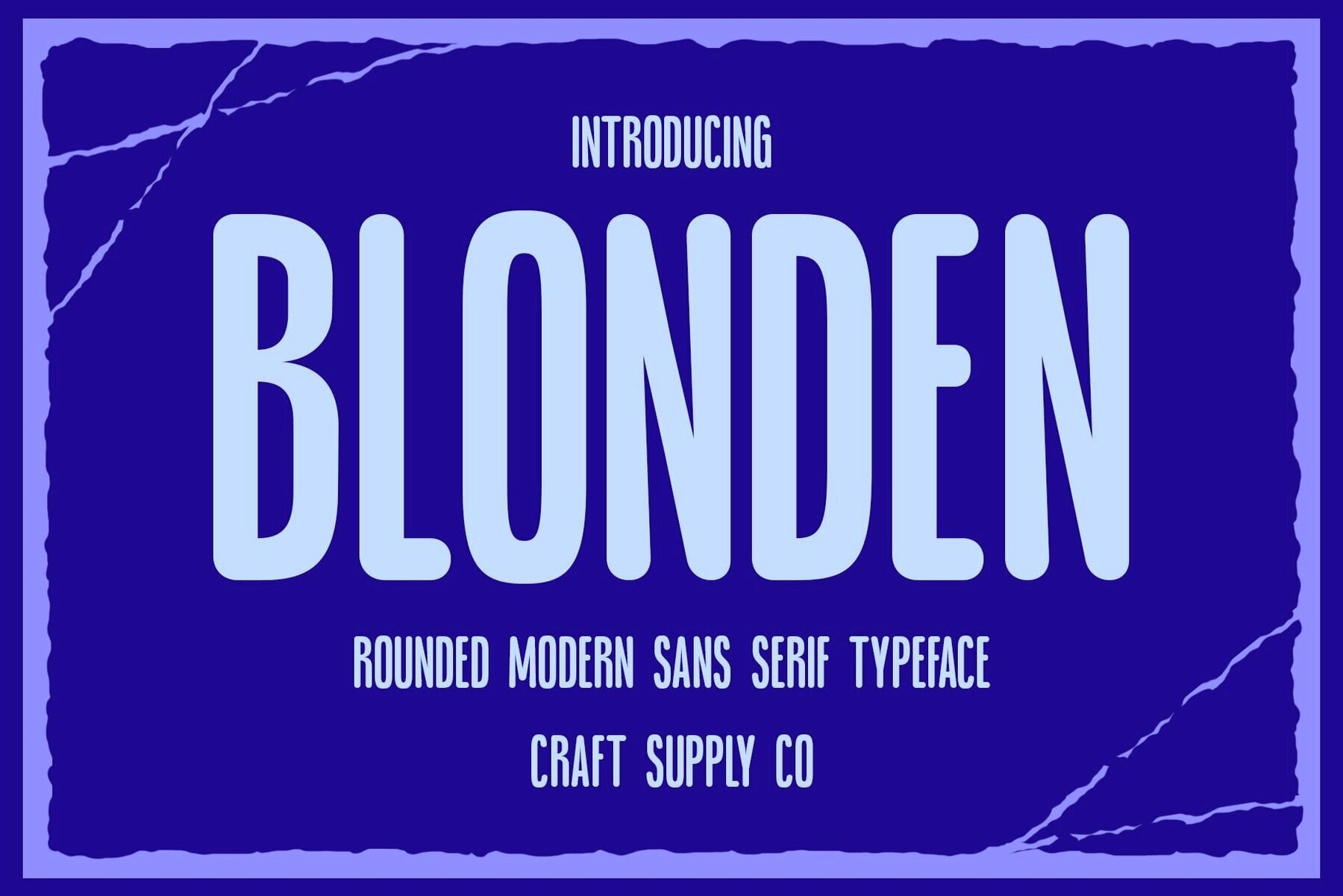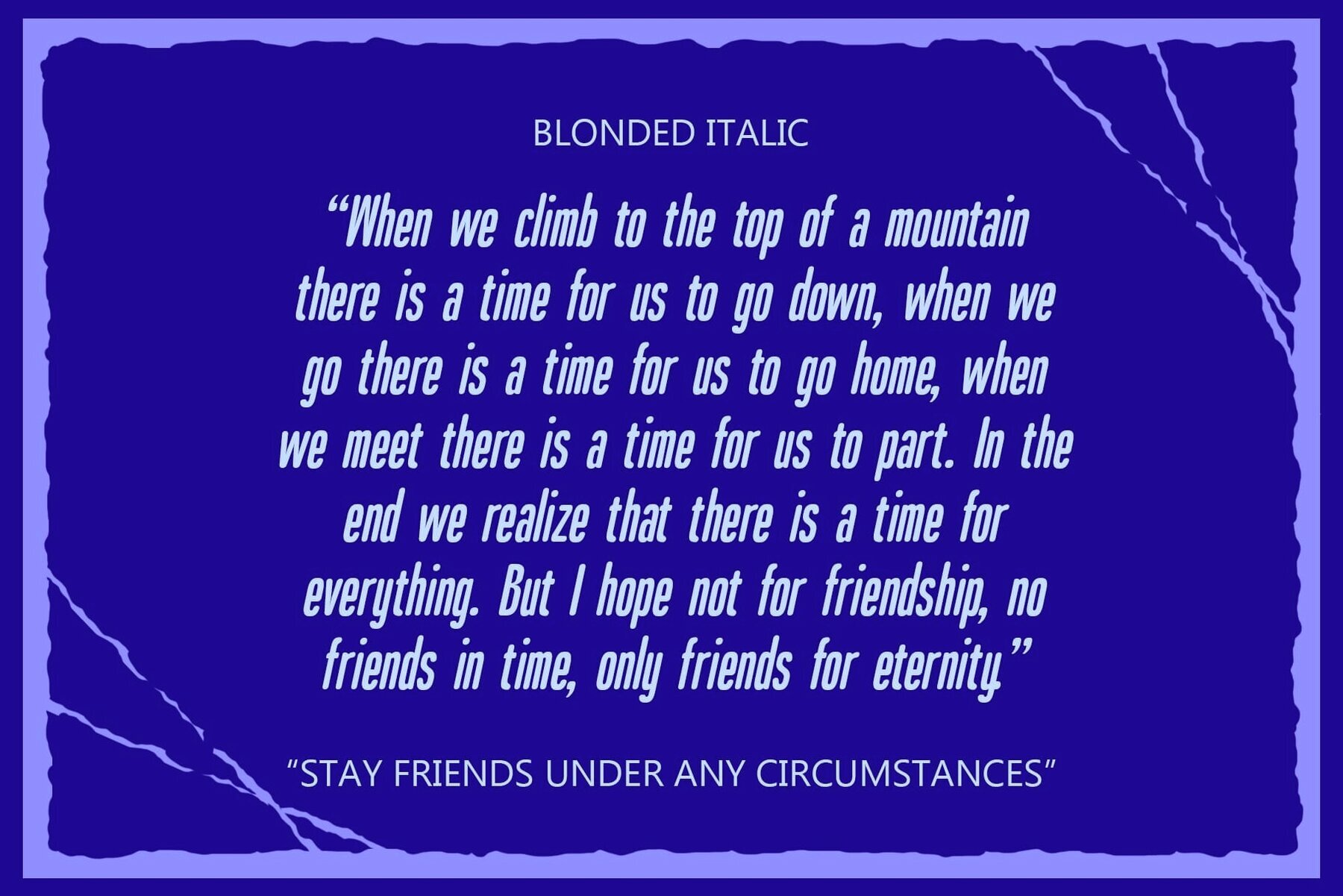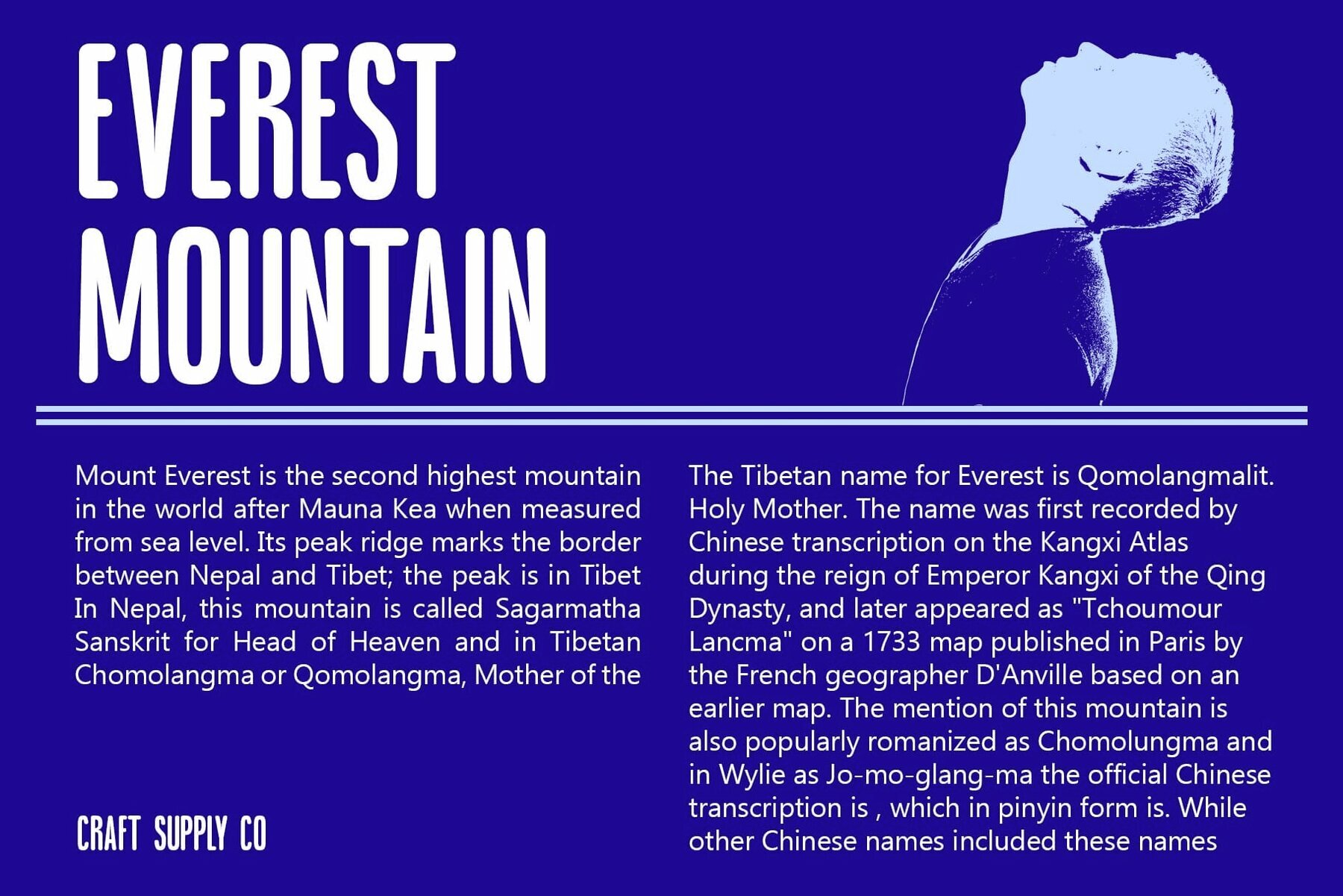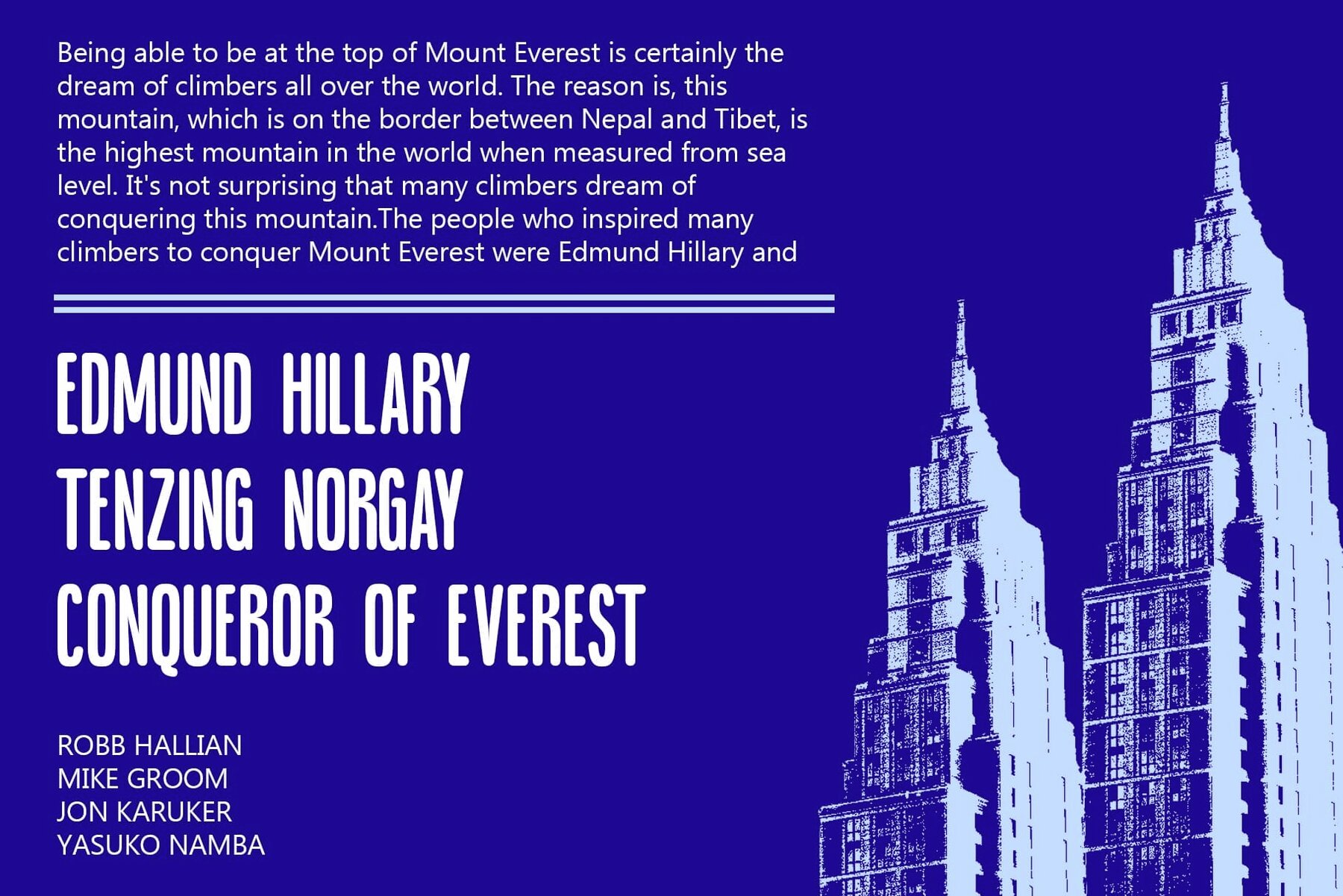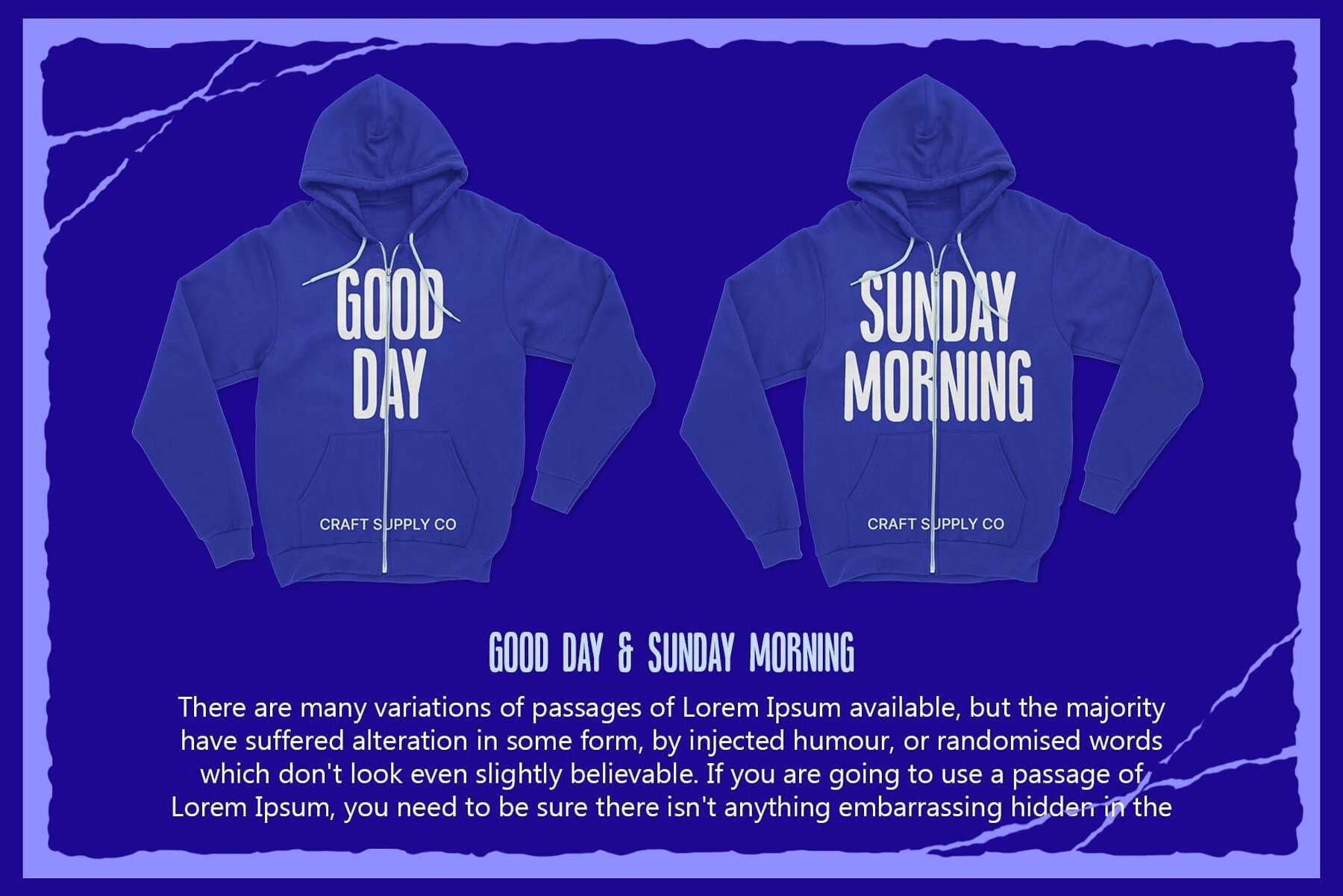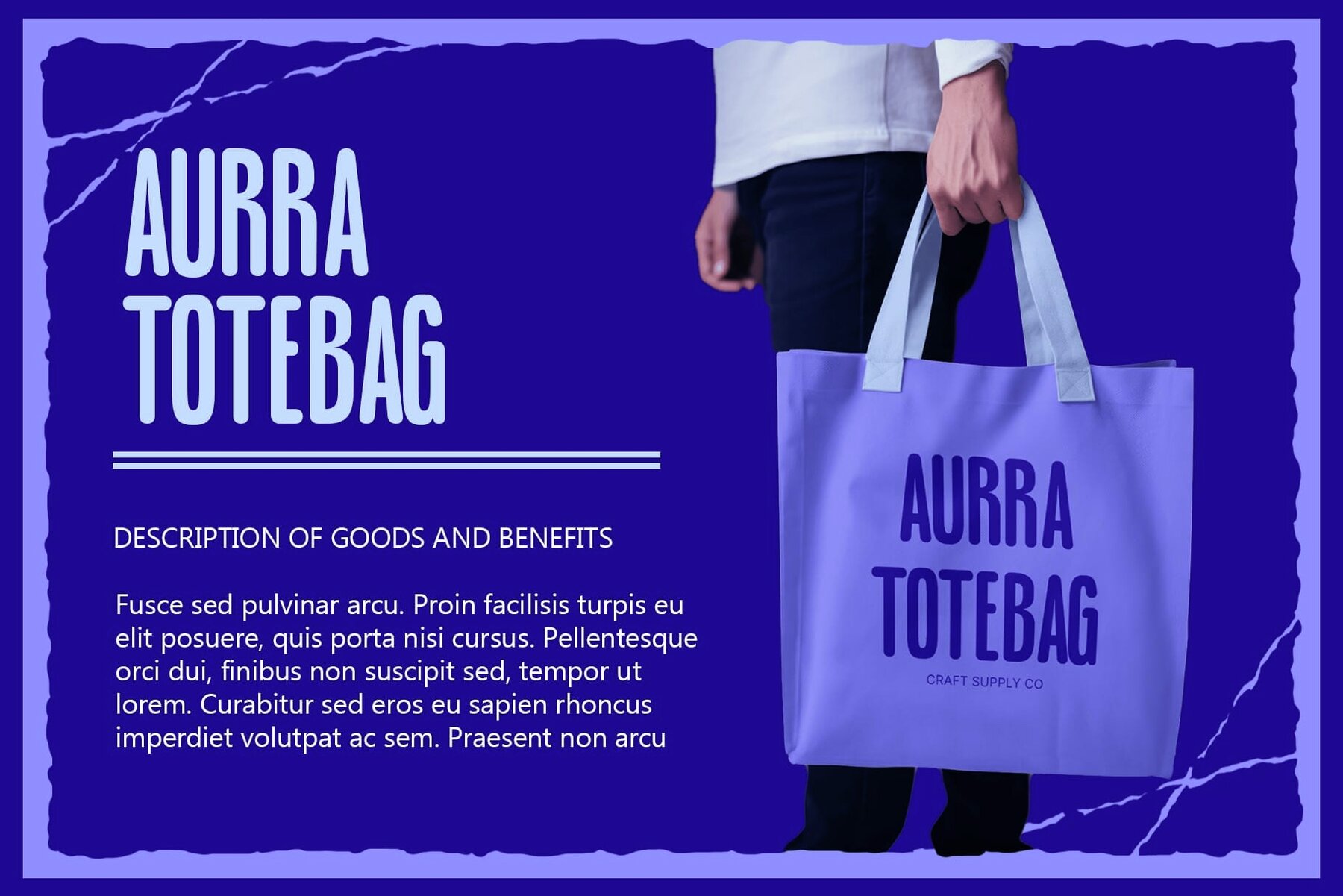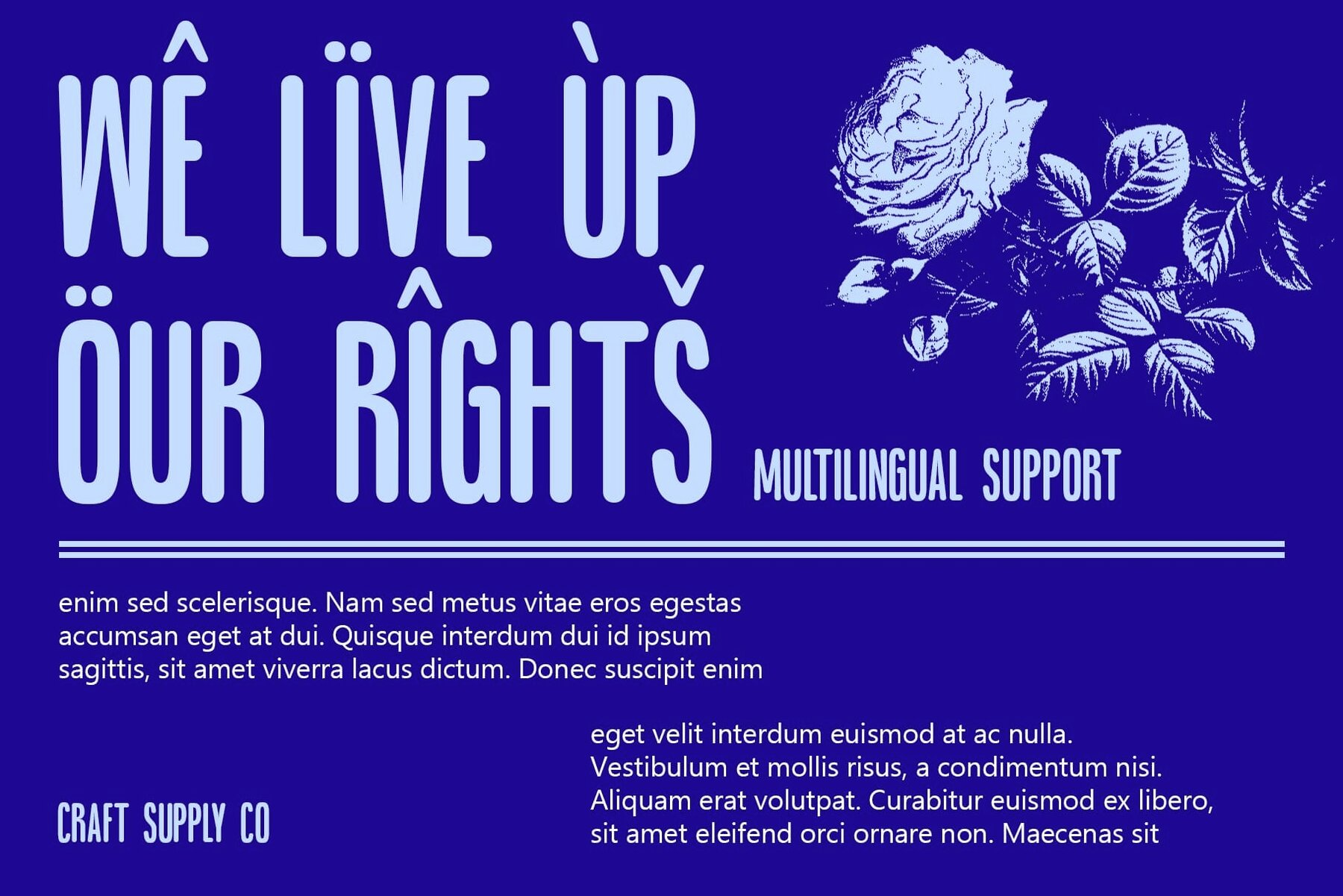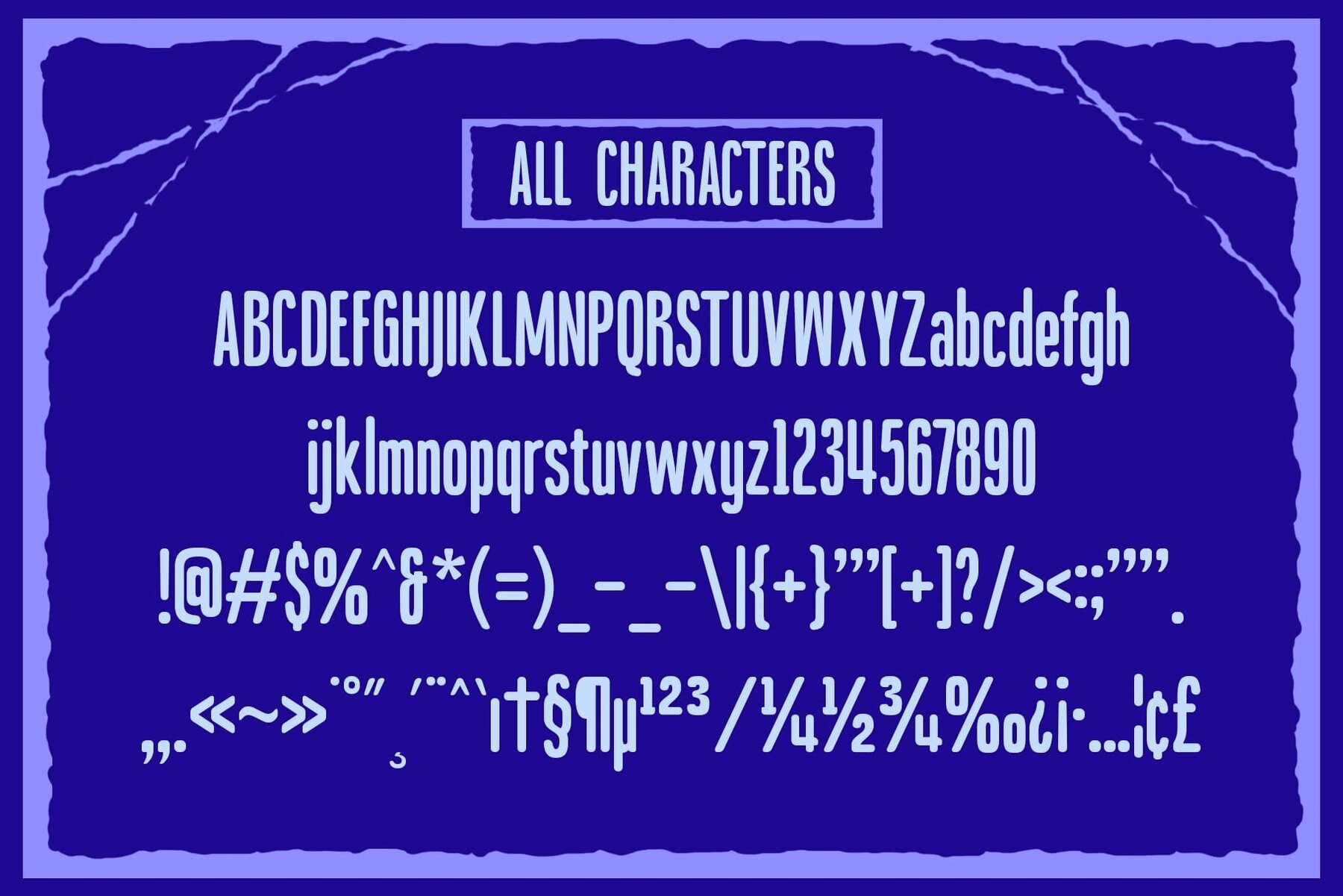
Blonden Rounded Font
Blonden Rounded offers a gentle sans serif experience with its low contrast and softly rounded stem ends. With its towering stature, this font commands attention while maintaining an elegant presence. Ideal for a wide range of design projects, this font excels in both digital and print mediums, from website headers to packaging design. Embrace understated elegance with this font. Its subtle nuances and rounded edges add a touch of sophistication to any design without overpowering the visual landscape. This font offers a unique blend of gentle curves and tall stature, making it suitable for a variety of design applications. With its understated elegance and versatile nature, this font adds a soft yet impactful touch to any project. You can use this typeface without the need for any specialized software. If you have any inquiries or need assistance, please feel free to contact us. We appreciate your support in enhancing your creative projects! Best regards, Craft Supply Co.Blonden Rounded: A Soft Touch in Sans Serif
Subtle Contrast and Rounded Ends
Versatile Application
Understated Elegance
Softness in Form